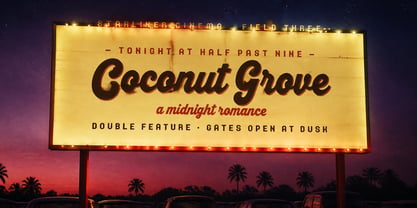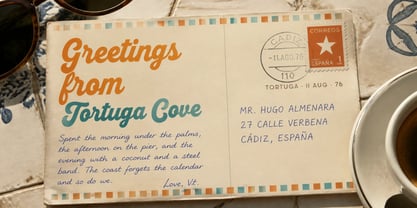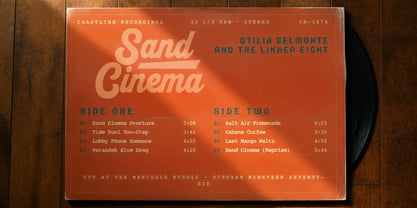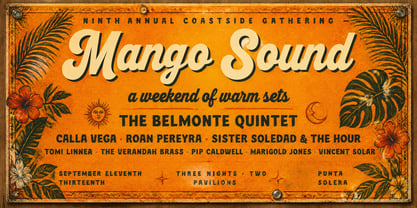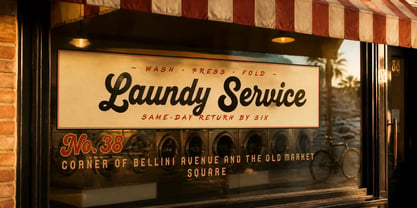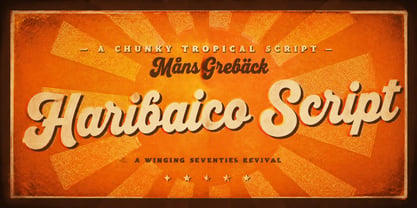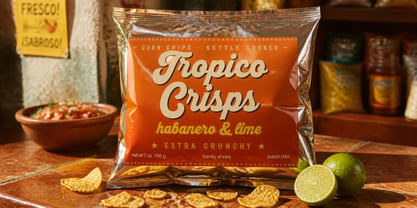
Haribaico Script
by Mans Greback
The Haribaico Script Font Family was designed by Måns Grebäck and published by Mans Greback. Haribaico Script contains 4 styles and family package options. More about this family
Haribaico Script is a bold and chunky script typeface.
The letters lean forward with thick downstrokes and a casual look, the kind of lettering you might see splashed across a 1960s drive-in menu board or hand-painted on the back of a soda fountain mirror. It clean and structured, while also having an approachable appearance and friendly attitude.
The font is built with advanced functionality and guaranteed top-notch quality, containing stylistic and contextual alternates, ligatures and more automatic and manual features; all to give you full control and customizability.
It has extensive lingual support, covering all Latin-based languages, from North Europa to South Africa, from America to South-East Asia. It contains all characters and symbols you'll ever need, including all punctuation and numbers.